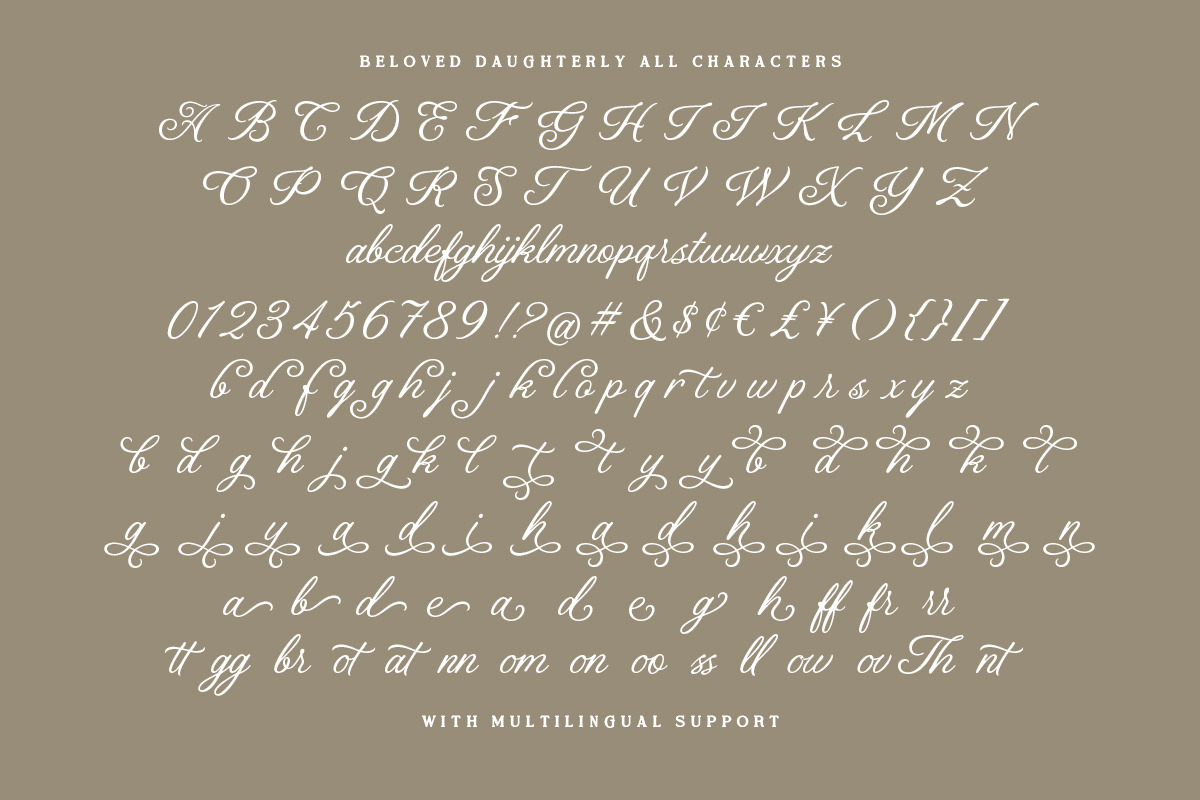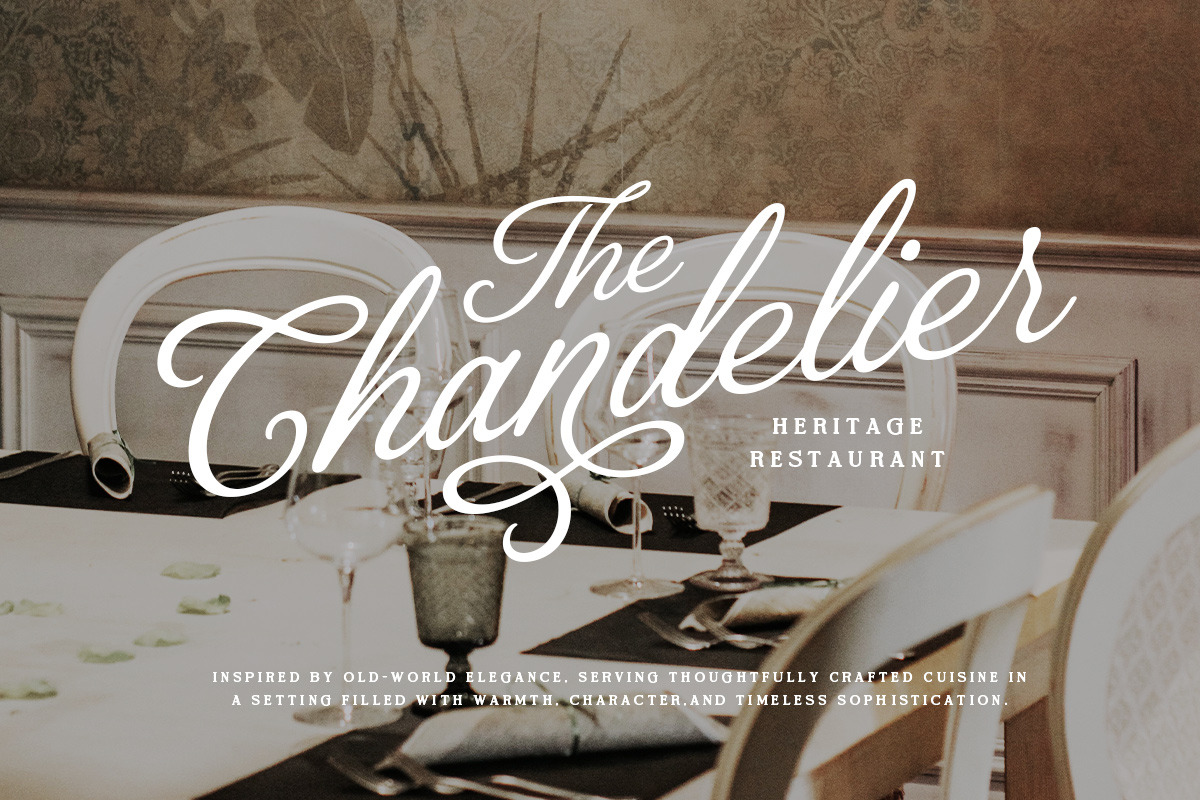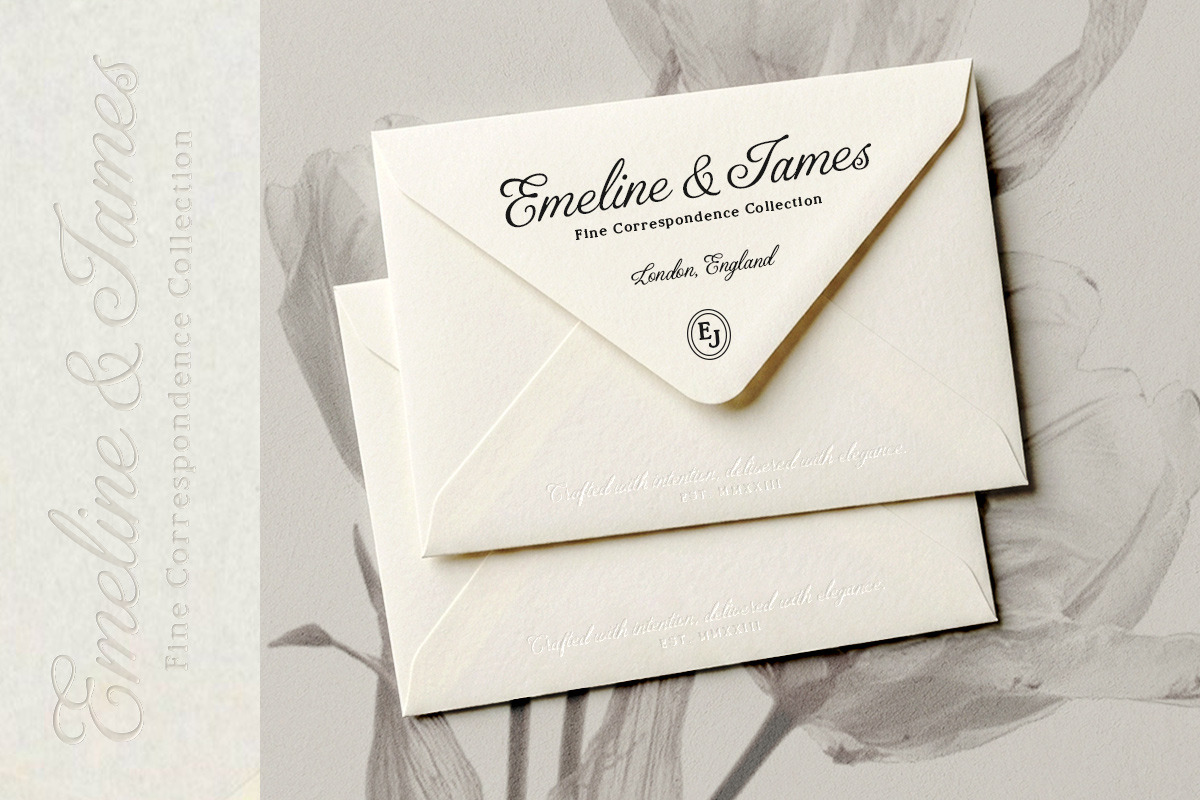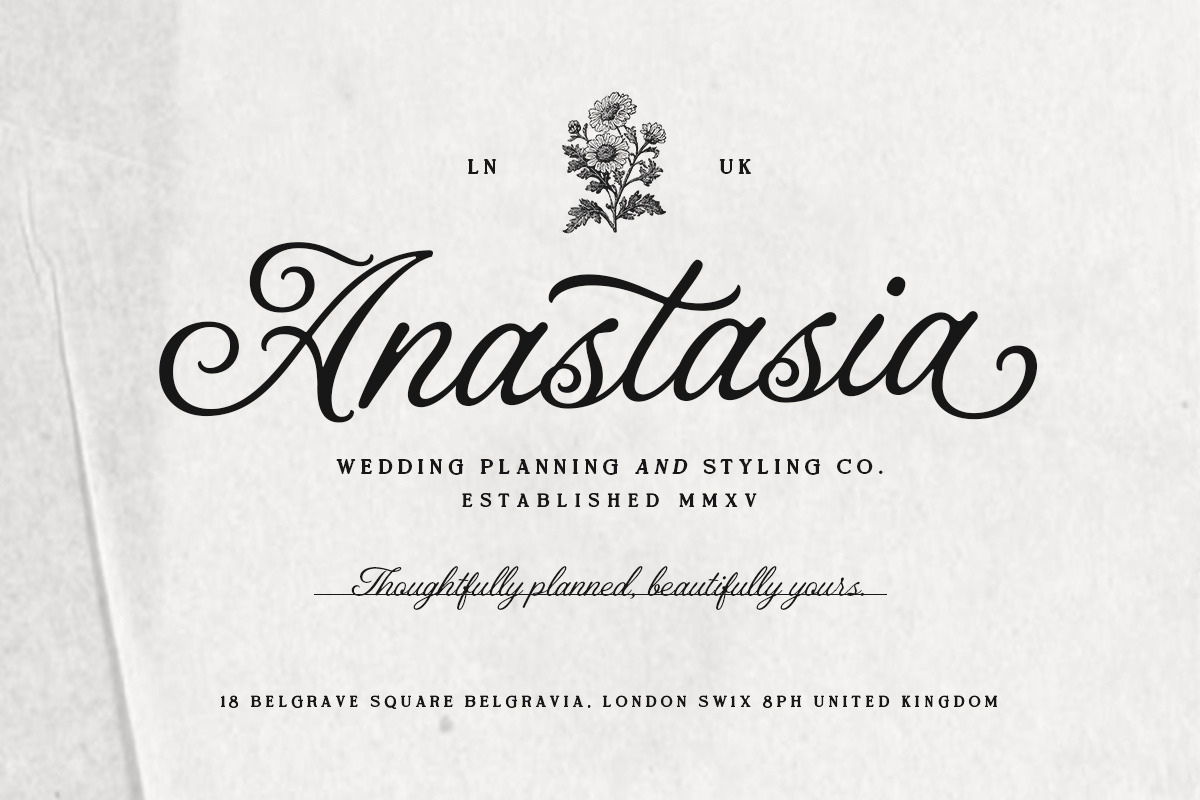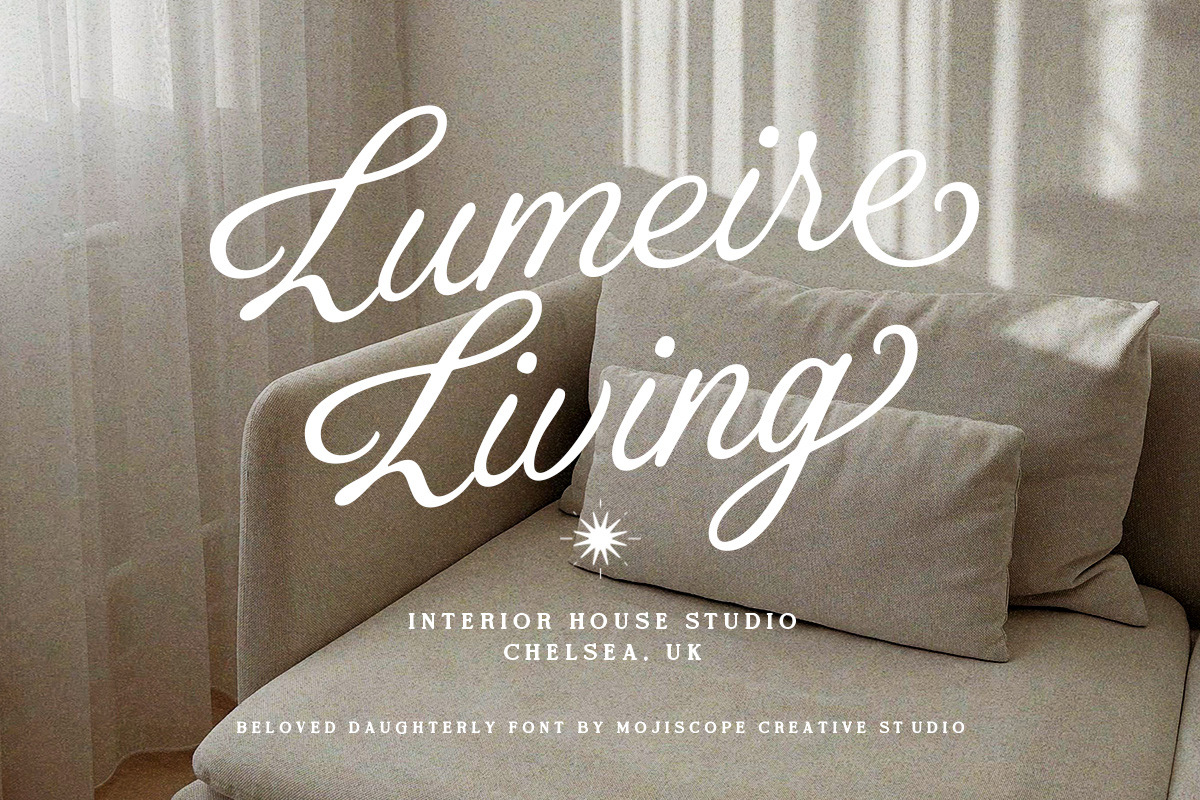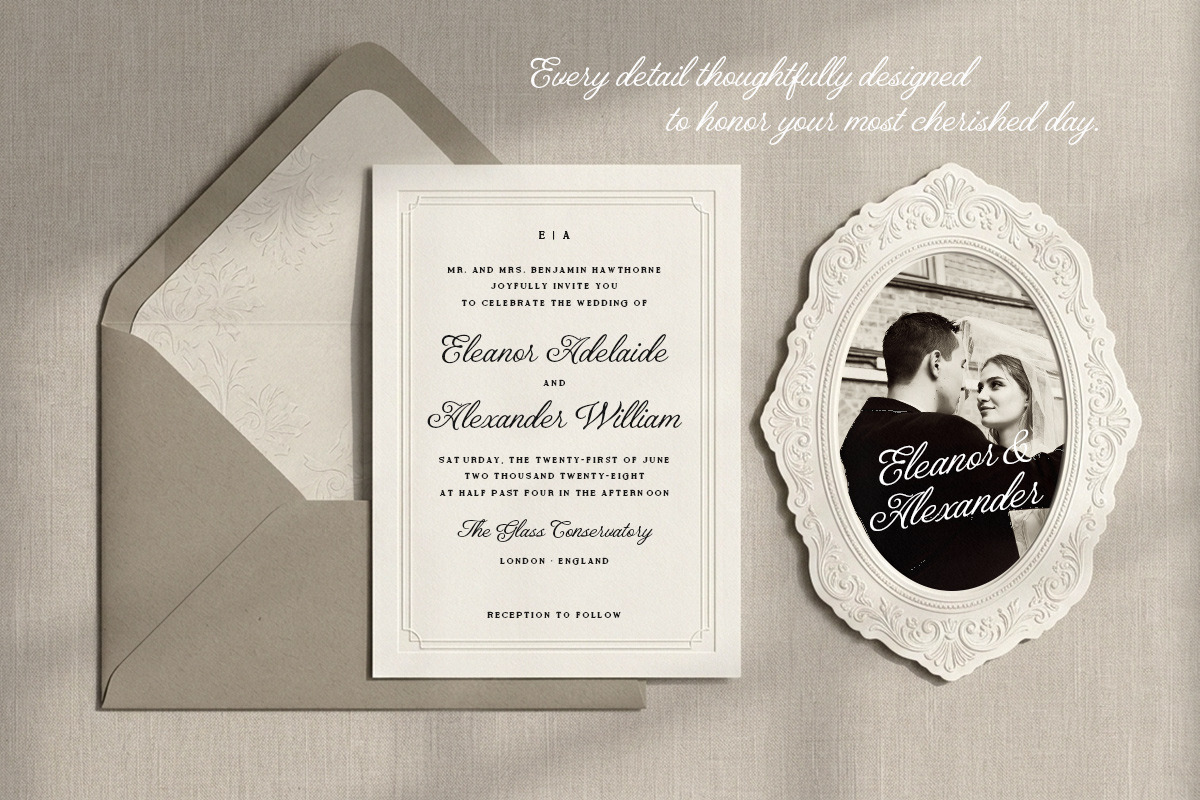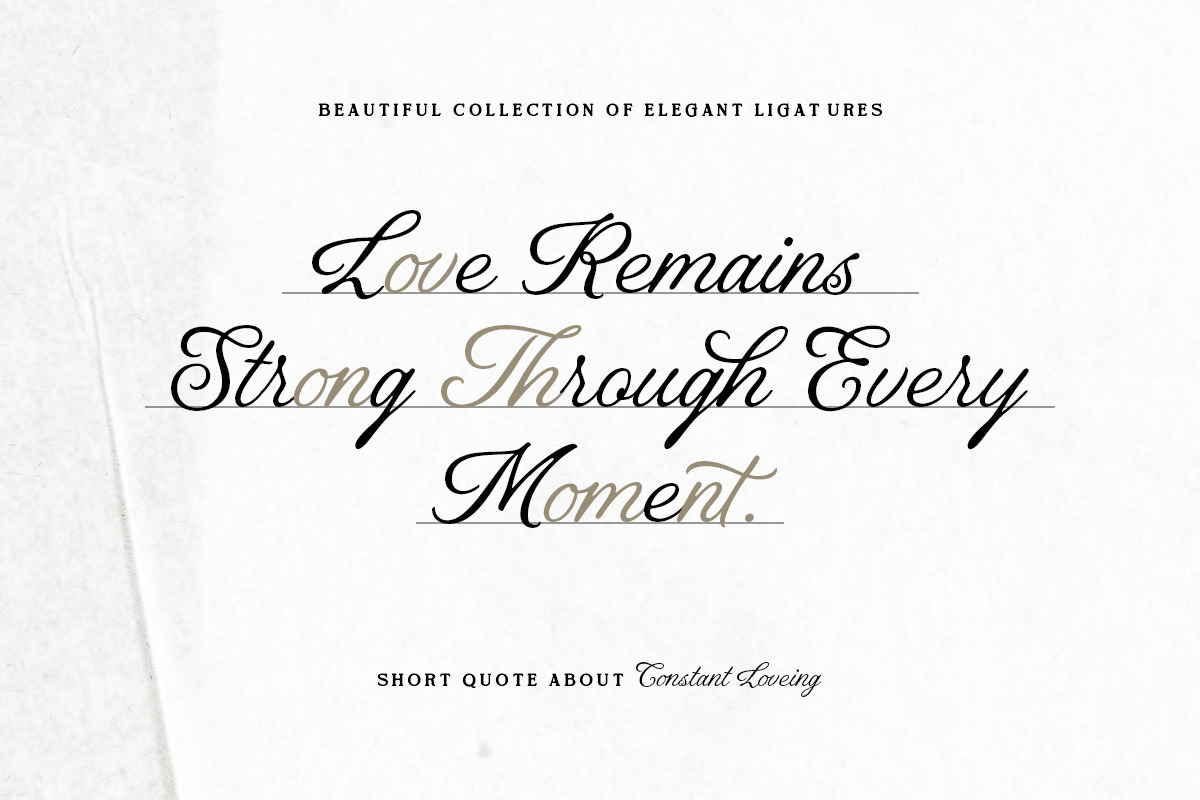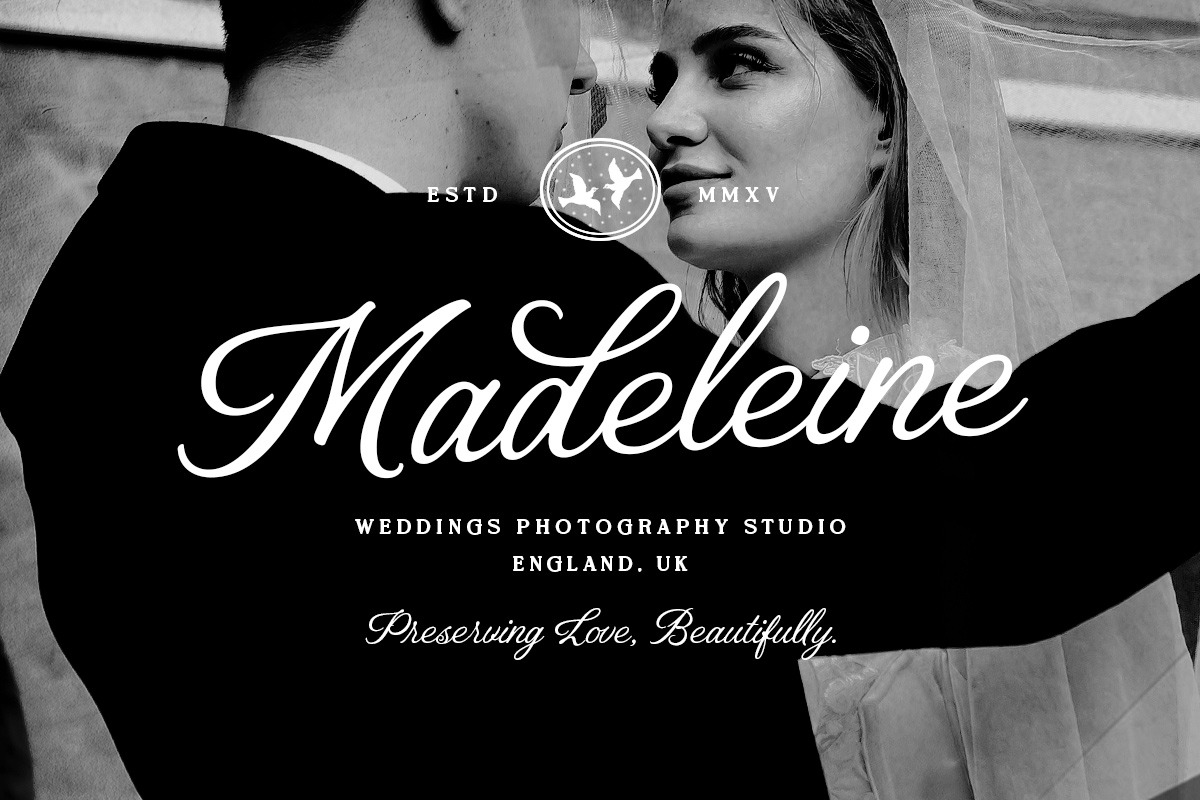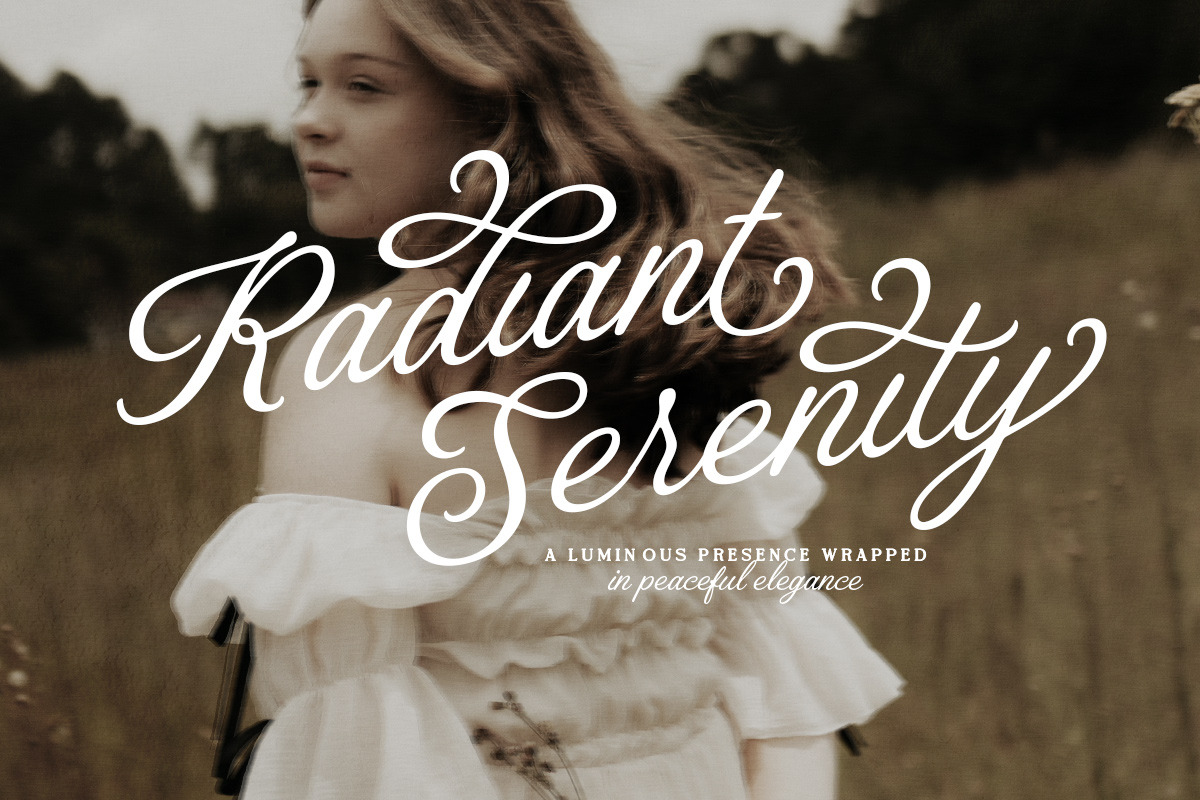
MCO - Beloved Daughterly
Beloved Daughterly – Timeless Wedding Calligraphy Script
Capture the essence of romance with Beloved Daughterly, a stunning handwritten script font inspired by timeless wedding calligraphy. Its fluid, graceful strokes and elegant curves are designed to add a touch of sophistication to your most special projects.
Whether you're creating luxury wedding invitations, high-end stationery, or chic branding, Beloved Daughterly brings a personal, handcrafted feel that is both charming and professional. Featuring beautiful alternates and seamless ligatures, this font allows you to craft unique, artistic typography with ease. Elevate your visual communication and let your designs speak with elegance.
Wedding Invitations & Suite
Luxury Branding & Logos
Social Media Quotes & Content
Boutique Packaging & Tags
Fine Art Editorial Design